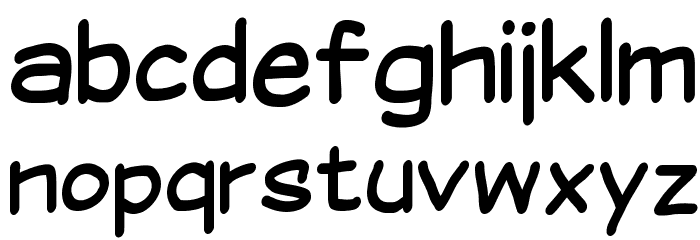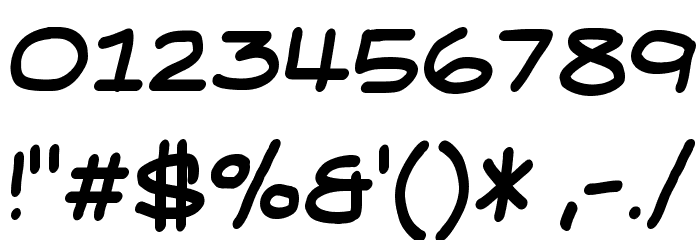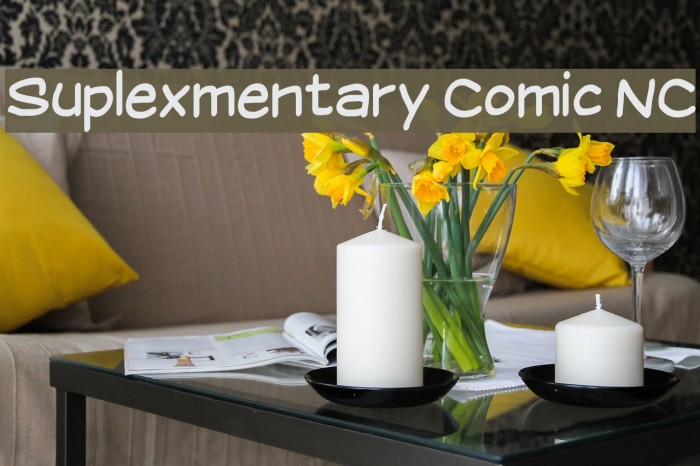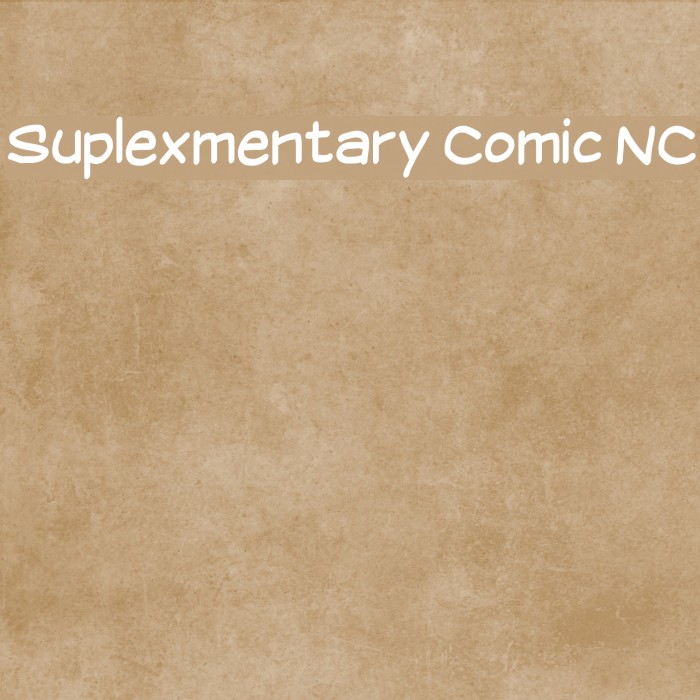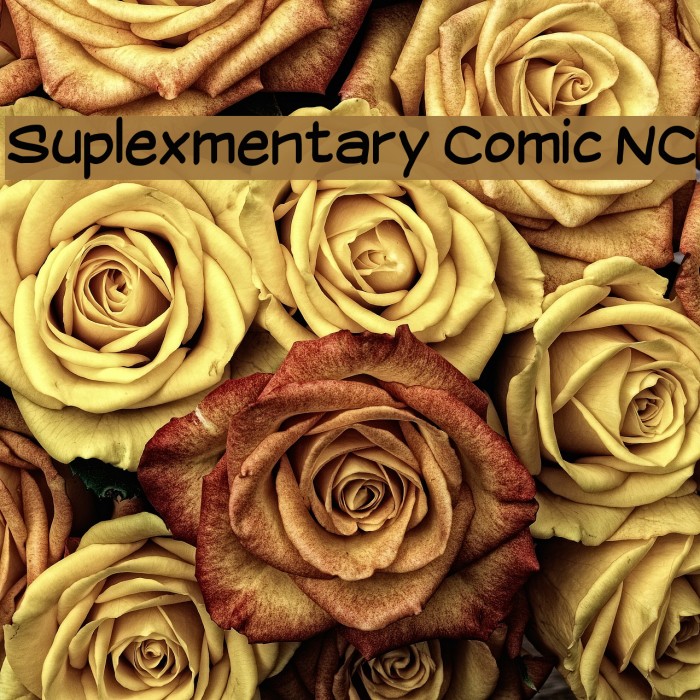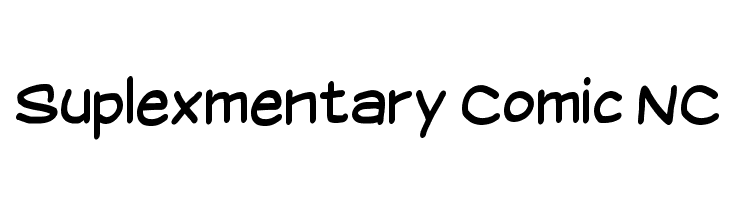
Suplexmentary Comic NC Font
This playful and informal font features rounded, slightly irregular letterforms that give it a casual and friendly appearance. The characters are bold and have a consistent stroke width, contributing to a cohesive and approachable style. The font includes both uppercase and lowercase letters, numerals, and a variety of special characters, making it versatile for different uses. Its design is reminiscent of handwriting, with a touch of whimsy that adds personality to any text. The spacing between characters is normal, ensuring readability while maintaining its unique charm.
A playful, informal font with rounded, irregular letterforms and consistent stroke width.
- Proposed Projects: Ideal for comic books, children's books, playful branding, and casual invitations.
- Overall Style: Casual
- Use Case: Headlines, Logos, Informal Texts